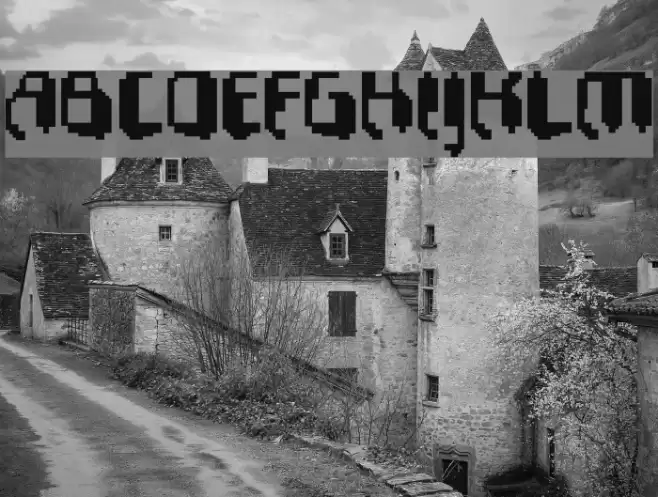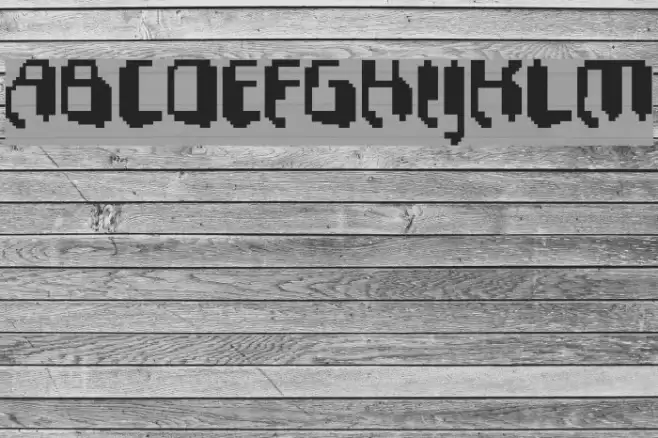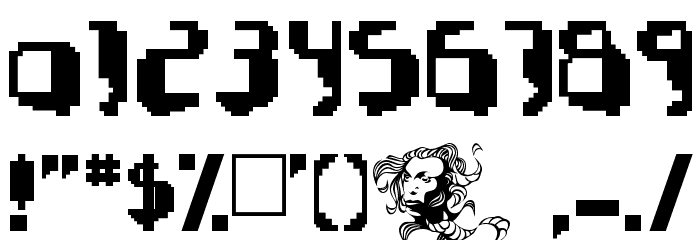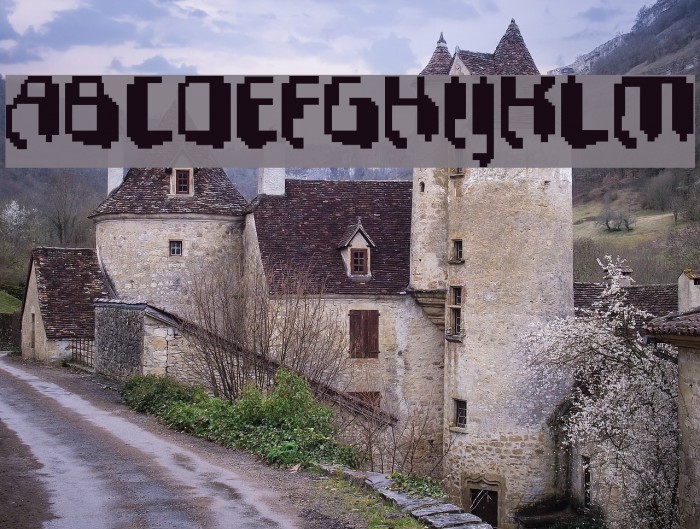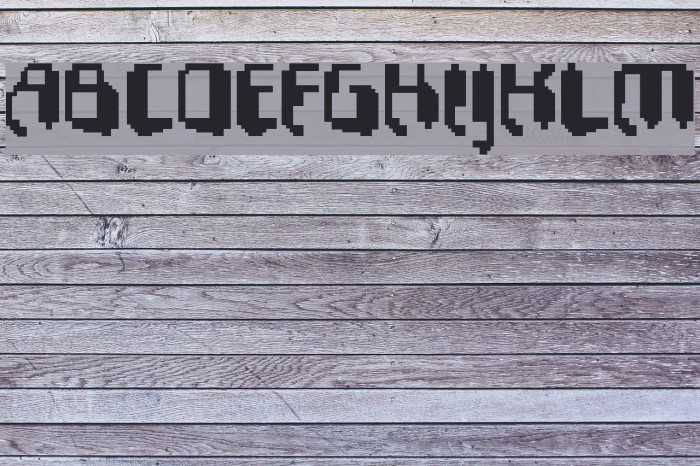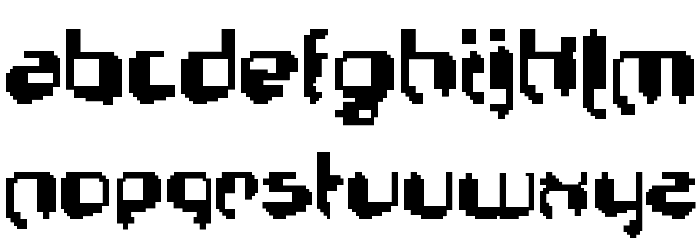
Psychopod Font
Psychopod Description
This font exhibits a bold, pixelated style reminiscent of early digital or video game aesthetics. The characters are blocky and angular, with a consistent thickness throughout, giving it a uniform appearance. The uppercase and lowercase letters maintain a similar height, enhancing its monospaced feel. Numbers and special characters follow the same design principles, ensuring cohesion across all glyphs. The font's unique style makes it stand out, with a retro, tech-inspired vibe that is both nostalgic and modern.
A bold, pixelated font with a retro digital aesthetic from Uncategorized fonts.
- Proposed Projects: Ideal for video game graphics, retro-themed posters, digital art projects, and tech-related branding.
- Overall Style: Retro, Digital
- Use Case: Logos, Posters, Digital Art